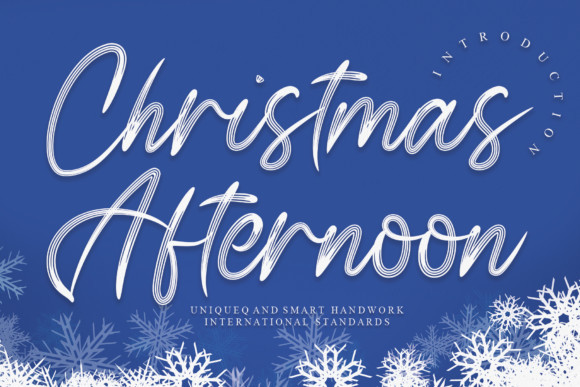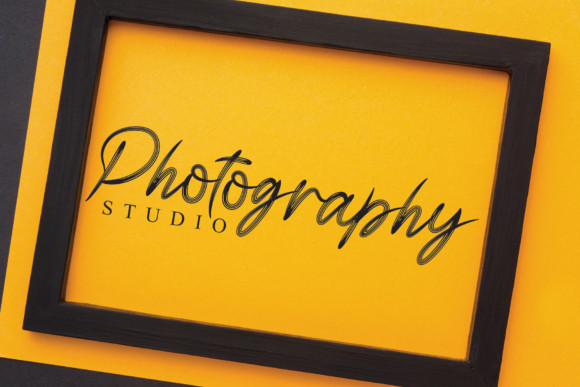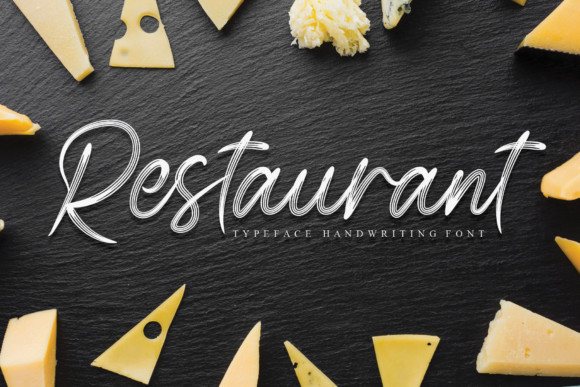
Christmas Afternoon Font
Christmas Afternoon is an exquisite handwritten font, characterized by a beautiful flow. It can be used for various purposes such as logos, wedding invitations, headings, t-shirts, letterhead, signage, labels, news, posters, badges and so much more.